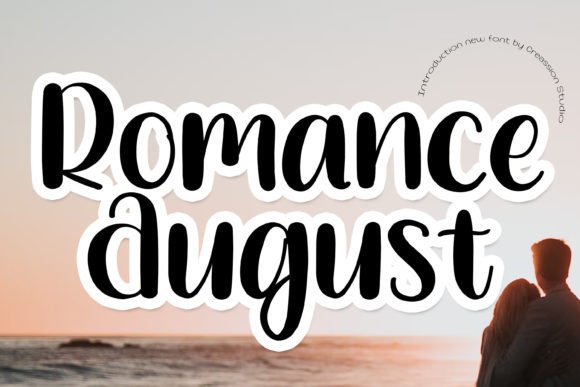
Unleash your creativity with the Romance August font, a stunning script creation by Creassion Studio. Discover the allure of handwritten elegance, perfect for adding a touch of charm to your designs. Dive into a world of endless possibilities, where your imagination knows no bounds.
Romance August's captivating curves and fluid lines evoke a sense of timeless beauty. Let your words dance across the page, whether it's an enchanting wedding invitation, a heartfelt social media post, or a captivating advertisement. Make your mark on the world with logos that exude sophistication and leave a lasting impression.
With Romance August, transform ordinary packaging into captivating works of art. Elevate your product designs with intricate details that speak to your customers' hearts. Create eye-catching labels that command attention and make your products stand out on any shelf. Capture the essence of your brand with stunning photography watermarks that add a touch of elegance to your images.
Romance August is your perfect companion for any project that calls for a handwritten touch. Craft heartfelt invitations that set the tone for unforgettable occasions. Personalize your stationery with a flair that reflects your unique style. Let Romance August be your muse, guiding you to create designs that leave a lasting impression.